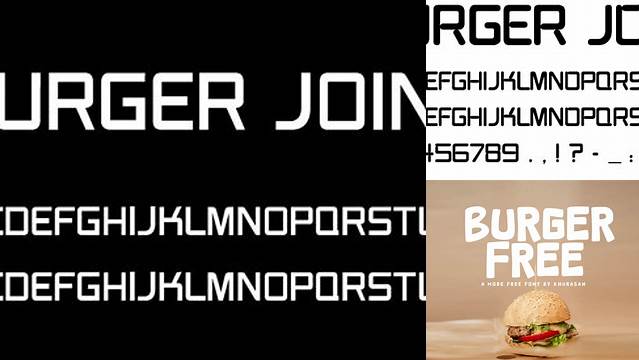
Burger Joint Font: Free Downloads For Your Designs
Hey guys! Looking to add some retro flair to your designs? You've come to the right place! Finding the perfect burger joint font can be a game-changer for your projects, whether you're designing a menu, a logo, or even just spicing up your social media. Let's dive into the world of burger joint fonts and explore where you can snag some awesome free downloads. This guide will give you the lowdown on what makes a font scream "classic diner" and how to use them effectively. Get ready to inject some vintage vibes into your next project!
1. What Makes a Great Burger Joint Font?
So, what exactly makes a font feel like it belongs on a classic burger joint sign? It's all about that vintage charm! We're talking bold, attention-grabbing styles that evoke a sense of nostalgia and fun. Think about the fonts you've seen on old diner signs, retro ads, and classic burger restaurant logos. These fonts often have a distinct personality, making them instantly recognizable and appealing. One of the key characteristics is a strong, clear letterform that is easy to read from a distance. After all, you want people to be able to see your delicious offerings from across the street! Another element is the use of unique design features, such as serifs, curves, and decorative elements that add character and flair. For example, fonts with a script or handwritten style can bring a personal, inviting touch, while those with a blocky, sans-serif style often convey a sense of robustness and reliability. It's also common to see fonts that incorporate vintage lettering techniques, such as shadowing, outlining, or distressed textures, to enhance the retro feel. In short, a great burger joint font combines readability with a strong visual identity, capturing the essence of a classic diner experience. It’s all about finding that perfect blend of nostalgia and modern design sensibility, creating a visual language that resonates with your audience and reinforces your brand’s identity. When choosing a font, think about the overall aesthetic you want to achieve and how the font will complement the other design elements. A well-chosen font can make your project stand out and leave a lasting impression!
3. Top 5 Free Burger Joint Fonts
Okay, let’s get specific! To make your search a little easier, here are five fantastic free burger joint fonts that you can download right now. These fonts are all about that classic diner feel and are perfect for a range of projects, from logos to menus to posters. First up, we have Luckiest Guy. This font is a bold, condensed sans-serif with a playful, almost hand-drawn feel. It’s perfect for headlines and titles, giving off a friendly and approachable vibe. Then there’s Permanent Marker, which mimics the look of, well, a permanent marker! Its rough, textured edges add a touch of authenticity, making it great for menus and signage. Next on the list is Bangers, a bold, comic-book-style font that screams retro fun. It’s super eye-catching and works well for anything that needs to grab attention. If you’re looking for something a bit more elegant, check out Pacifico. This script font has a smooth, flowing style that’s reminiscent of vintage signage. It’s perfect for adding a touch of class to your designs. Last but not least, we have Fredericka the Great, a unique, hand-lettered font with a slightly quirky feel. It’s great for adding a personal touch to your projects. All of these fonts are available for free download from various sources like Google Fonts and DaFont, but as always, be sure to double-check the licensing terms before using them in your work. These top picks should give you a great starting point for finding the perfect burger joint font for your next project. Go ahead, give them a try and see how they can transform your designs!
4. Using Burger Joint Fonts in Logos
Using the right font in your logo is absolutely crucial, especially if you're aiming for that classic burger joint vibe. The font you choose will instantly communicate your brand's personality and style, so you want to make sure it's a perfect fit. A good burger joint font for a logo should be bold, memorable, and easy to read, even at a smaller size. Think about the logos of some iconic burger chains – they often use fonts that are chunky, playful, and a bit retro. When incorporating a burger joint font into your logo, consider how it interacts with other design elements. The font should complement your color scheme, imagery, and overall brand message. For example, if you're going for a vintage diner feel, you might pair a bold script font with classic red and white colors and retro illustrations. It’s also important to think about scalability. Your logo needs to look good whether it's printed on a business card, a billboard, or a website. Test your font at different sizes to make sure it remains legible and impactful. Experiment with different font combinations to find the perfect balance. Sometimes, pairing a bolder burger joint font with a simpler, cleaner font can create a striking contrast that enhances your logo's visual appeal. Don’t be afraid to customize your chosen font to make it truly unique. You can adjust the letter spacing, add unique details, or even create custom glyphs to set your logo apart. Remember, your logo is the face of your brand, so take the time to choose a font that accurately represents your burger joint's identity and values. A well-designed logo with the right font can help you attract customers and build a strong brand presence.
5. Burger Joint Fonts for Menus
Your menu is one of the most important marketing tools for your burger joint, so the fonts you choose play a key role in how customers perceive your offerings. A great burger joint font for a menu should be both legible and visually appealing, making it easy for customers to browse and enticing them to try your delicious dishes. Think about the overall style of your menu. Are you going for a classic diner look, a modern gourmet feel, or something in between? The font should match the vibe you’re trying to create. For a classic diner menu, bold, retro-style fonts work really well. These fonts can evoke a sense of nostalgia and familiarity, making customers feel right at home. On the other hand, if you're aiming for a more upscale feel, you might opt for a clean, sans-serif font or a script font with a touch of elegance. Legibility is paramount when choosing fonts for your menu. Customers need to be able to easily read the menu items and descriptions, so avoid fonts that are too decorative or intricate. Stick to fonts with clear, well-defined letterforms. Also, consider the font size and spacing. Make sure the text is large enough to read comfortably, and use adequate spacing between lines and words to prevent the menu from feeling cluttered. Hierarchy is another important factor. Use different font styles and sizes to create a visual hierarchy on your menu, highlighting important information such as menu item names and prices. A bolder font can be used for headings, while a lighter font can be used for descriptions. Experiment with different font pairings to find a combination that works well together. A classic approach is to pair a bold headline font with a simpler body font. Ultimately, the best burger joint font for your menu is one that enhances readability, complements your brand’s style, and makes your menu items look irresistible. A well-designed menu can significantly impact the customer experience and drive sales, so it’s worth investing the time and effort to get it right.
6. Designing Posters with Burger Joint Fonts
When it comes to designing posters for your burger joint, the fonts you choose can make or break your message. The right burger joint font will not only grab attention but also communicate the essence of your brand and the deliciousness of your food. Think about the purpose of your poster. Are you advertising a special promotion, announcing a new menu item, or simply trying to attract more customers? The font should align with your objective. For promotional posters, you'll want a font that's bold, eye-catching, and easy to read from a distance. Retro fonts, script fonts, and even some novelty fonts can work well here, as long as they convey a sense of fun and excitement. If you're highlighting a specific menu item, choose a font that complements the food's personality. A juicy burger might call for a chunky, bold font, while a delicate dessert might be better suited to a more elegant script. Consider the overall aesthetic of your poster. Are you going for a vintage diner vibe, a modern and minimalist look, or something else entirely? The font should fit seamlessly into your design and enhance the overall visual appeal. Don’t be afraid to mix and match fonts, but do so carefully. A good rule of thumb is to use no more than two or three fonts on a single poster. Pair a bolder headline font with a simpler body font to create a balanced and visually engaging design. Pay attention to the size and spacing of your text. Your poster needs to be readable from a distance, so make sure your font is large enough and that there's plenty of space between letters and lines. Color is another important consideration. Choose font colors that contrast well with your background and complement your overall color scheme. Bright, vibrant colors can work well for burger joint posters, but make sure they don't clash with your font. A well-designed poster with the right burger joint font can be a powerful marketing tool. It can attract new customers, promote your brand, and create a buzz around your delicious food. So, take the time to choose your fonts wisely and create a poster that truly stands out.
7. Burger Joint Fonts on Social Media
Social media is a crucial platform for promoting your burger joint, and the fonts you use in your posts and graphics can have a significant impact on your brand’s online presence. Using the right burger joint font can help you create visually appealing content that grabs attention, conveys your brand’s personality, and encourages engagement. When designing social media graphics, think about your target audience. What kind of fonts will resonate with them? If you're targeting a younger demographic, you might opt for bolder, more playful fonts. If you're aiming for a more sophisticated audience, you might choose a cleaner, more elegant font. Consistency is key when it comes to social media branding. Use the same burger joint font or font family across all your posts and graphics to create a cohesive and recognizable brand identity. This will help your audience easily identify your content and build trust in your brand. Consider the platform you're using. Different social media platforms have different font rendering capabilities, so it's important to choose fonts that look good on all devices. Simpler fonts tend to work best on smaller screens, while more decorative fonts can be used sparingly for headings and captions. Legibility is paramount, especially on social media where users are quickly scrolling through their feeds. Choose fonts that are easy to read at a glance and avoid using overly small or cluttered text. Experiment with different font pairings to create visual interest. A classic approach is to pair a bold headline font with a simpler body font. This can help you draw attention to key messages and make your content more engaging. Use font colors strategically. Choose colors that contrast well with your background and complement your overall brand palette. Bright, vibrant colors can work well for social media graphics, but make sure they don't clash with your font. A well-chosen burger joint font can help you create social media content that stands out from the crowd. It can enhance your brand’s personality, attract new followers, and drive engagement. So, take the time to select fonts that align with your brand’s style and resonate with your target audience.
8. Pairing Burger Joint Fonts with Other Fonts
9. Retro Burger Joint Fonts
10. Vintage Burger Joint Fonts
11. Bold Burger Joint Fonts
12. Script Burger Joint Fonts
13. Sans-Serif Burger Joint Fonts for Burger Joints
14. Decorative Burger Joint Fonts
15. Hand-Lettered Burger Joint Fonts
16. Best Font Combinations for Burger Joints
17. Font Licensing for Burger Joint Designs
18. Using Fonts to Evoke Nostalgia in Burger Joint Branding
19. Fonts That Capture the Essence of a Diner
20. Fonts for a Modern Burger Joint Look
21. Fonts for a Classic Burger Joint Look
22. Fonts for a Family-Friendly Burger Joint
23. Fonts for an Upscale Burger Joint
24. Burger Joint Font Styles: A Comprehensive Guide
25. How to Choose the Right Font for Your Burger Joint
26. Font Psychology in Burger Joint Branding
27. The Impact of Fonts on Burger Joint Customer Perception
28. Fonts and Burger Joint Menu Design
29. Fonts and Burger Joint Signage
30. The Future of Burger Joint Font Trends